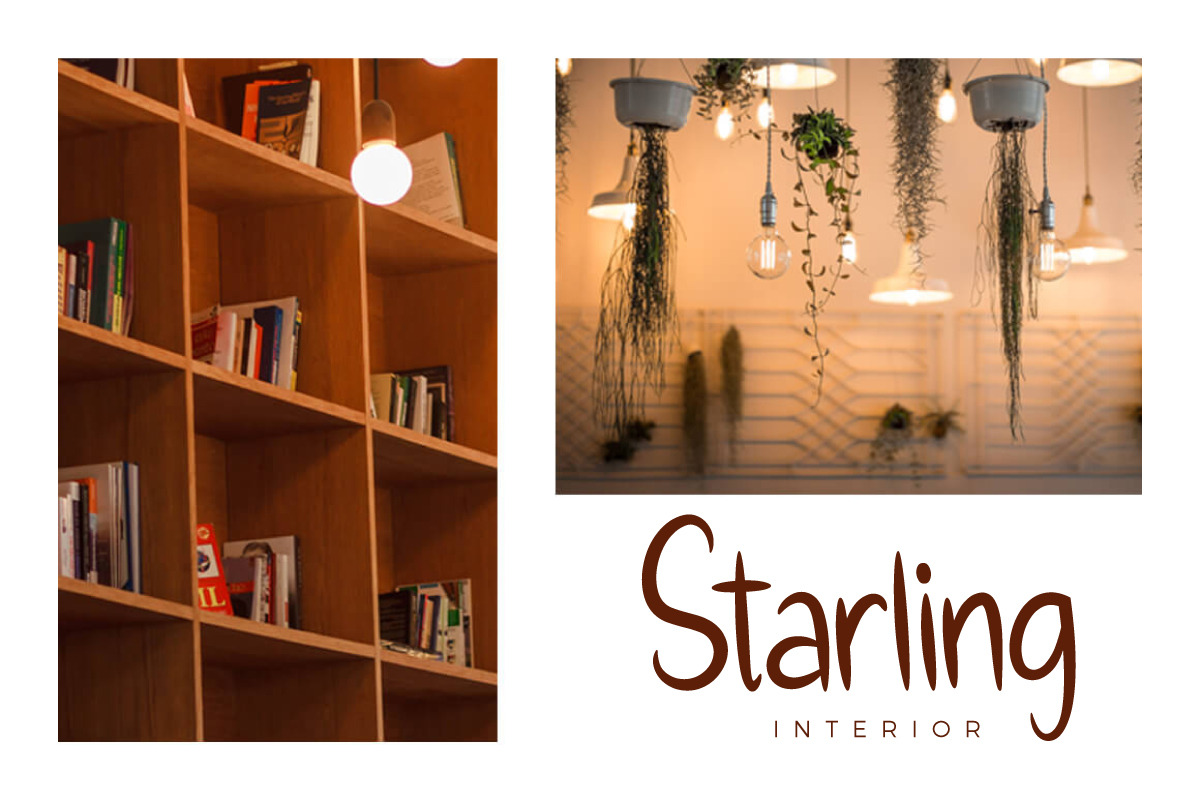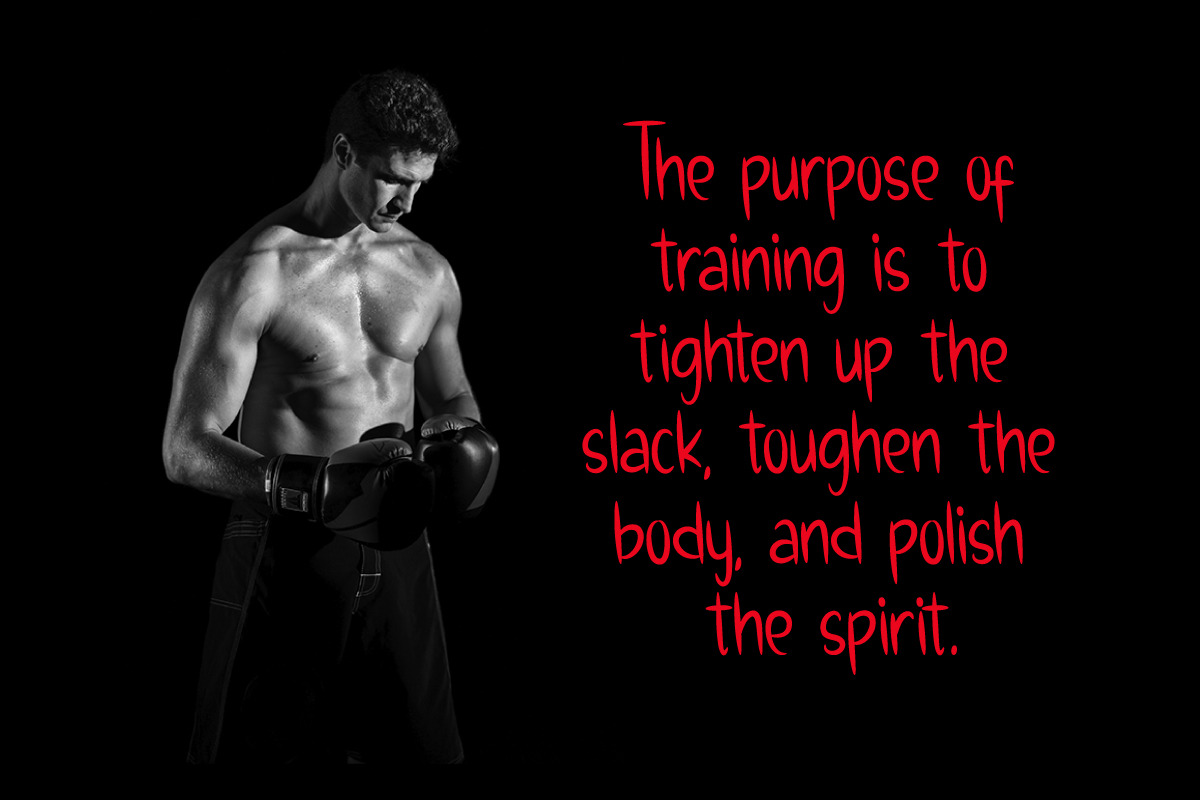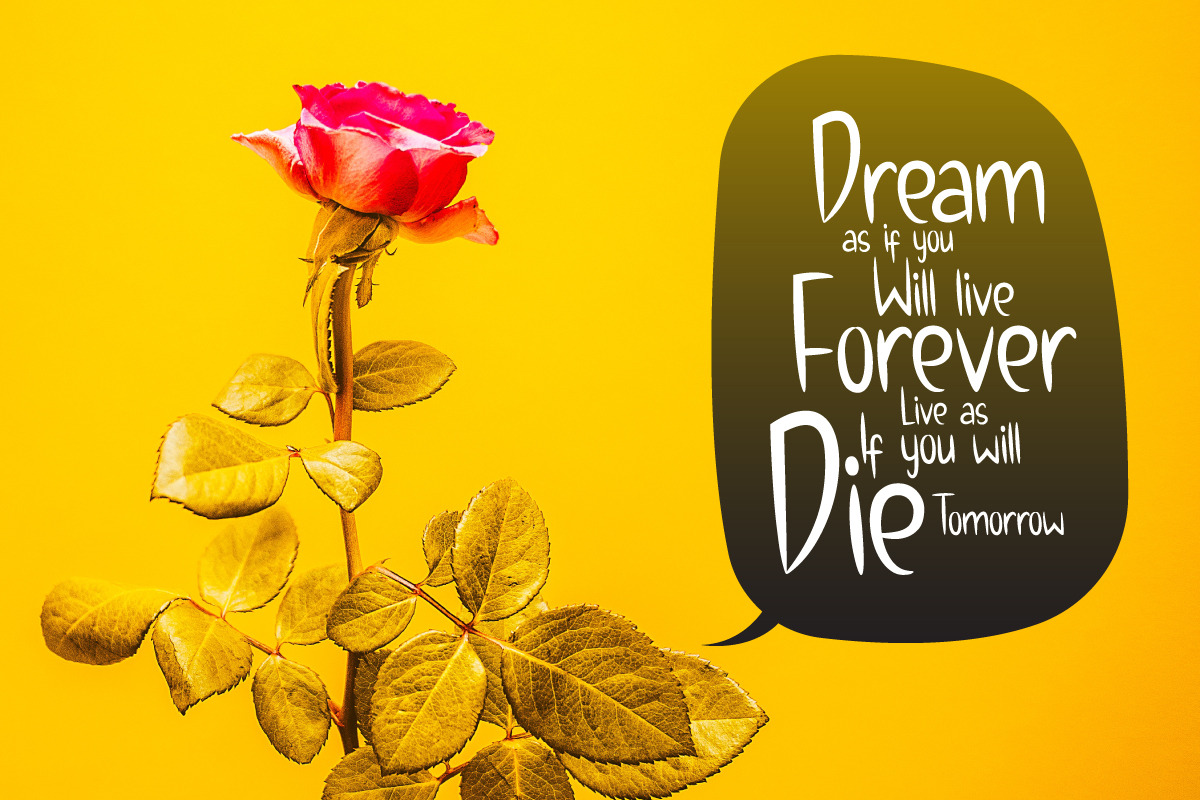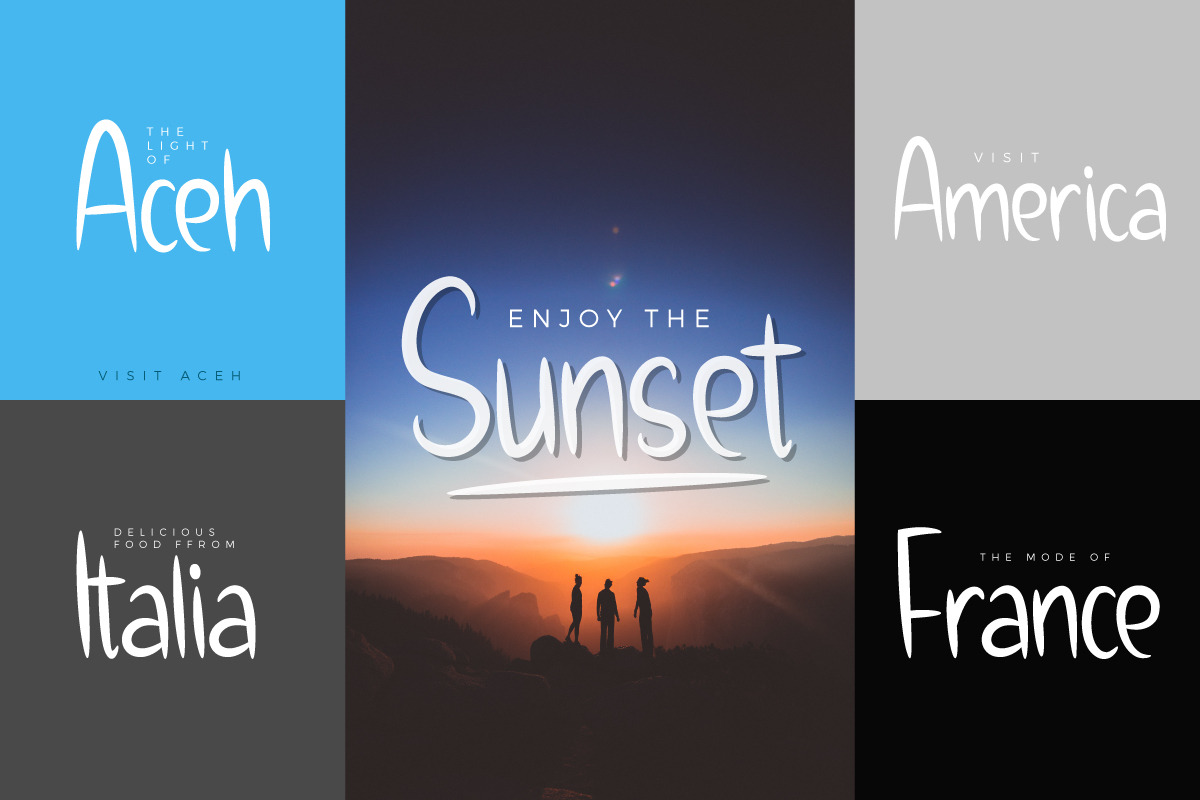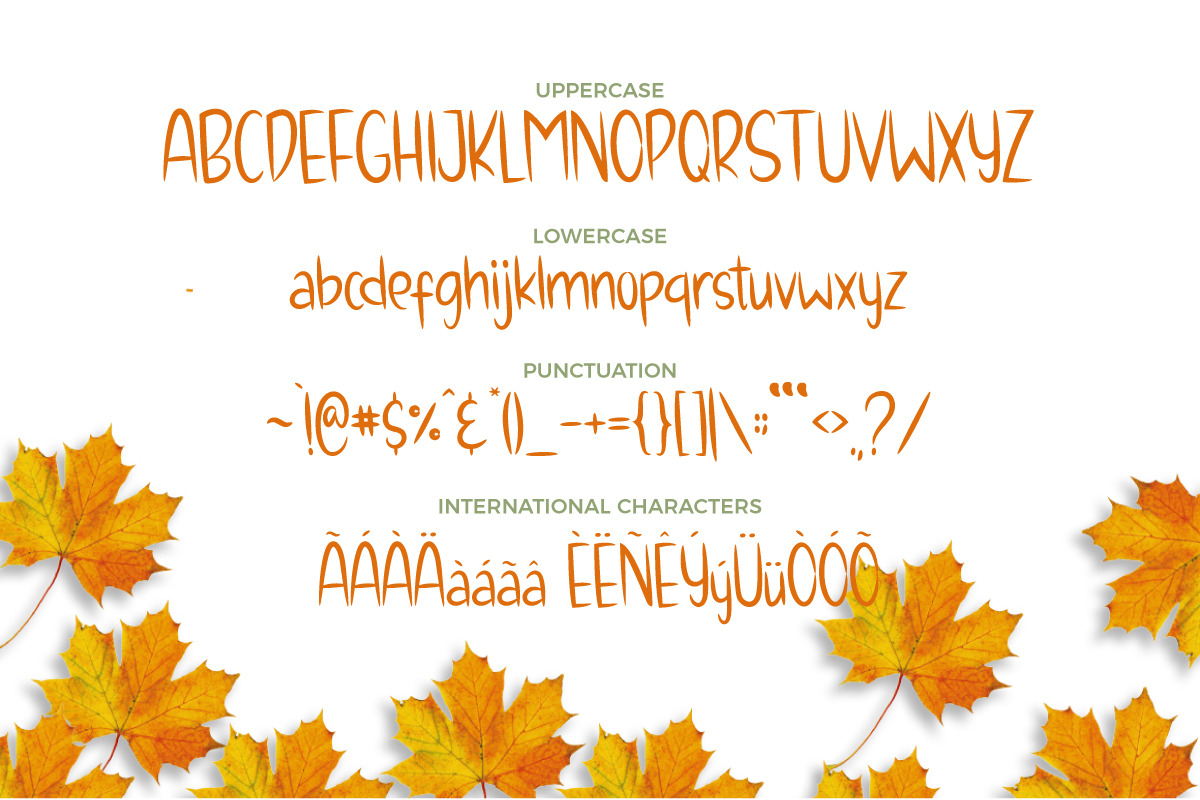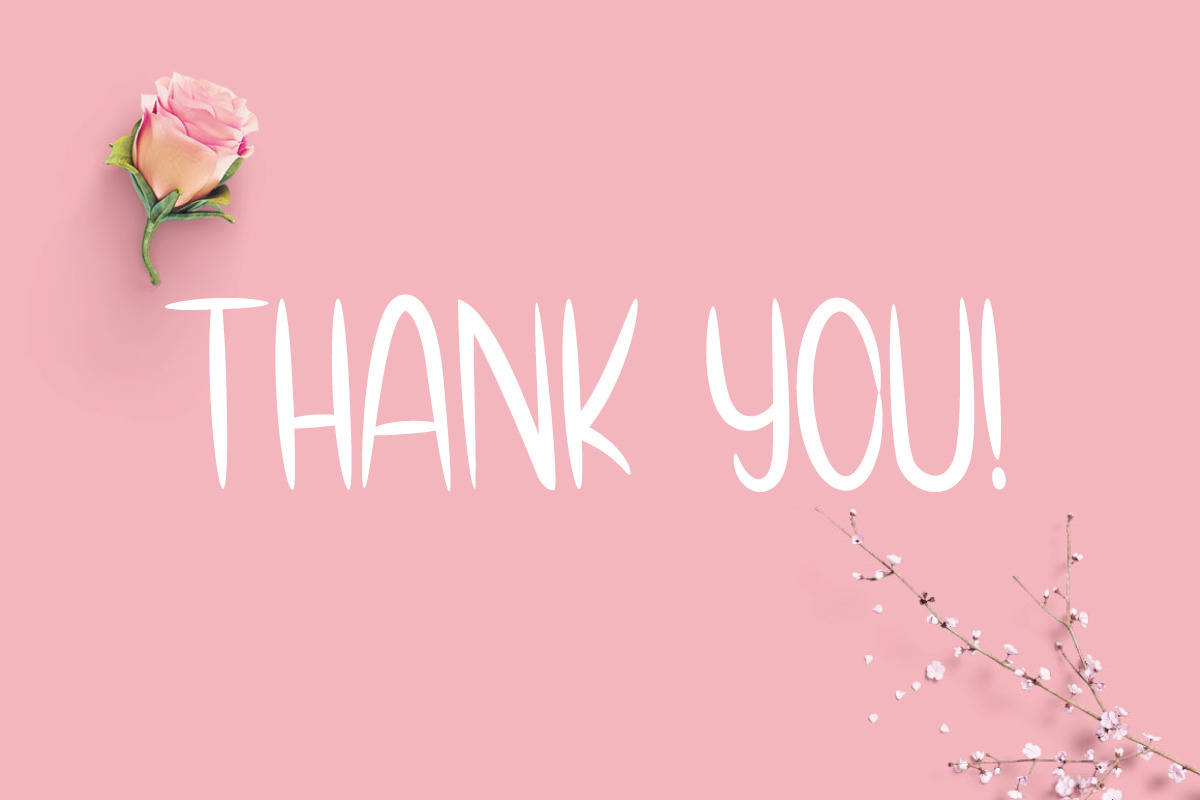
Charletty
Introducing Charletty Typeface - a handwritten font that is very fresh and unique style handmade. Charletty Typeface is perfectly suited to logo, tationery, poster, apparel, branding, wedding invitation, card, tagline, layout design, and much more !!Files included: